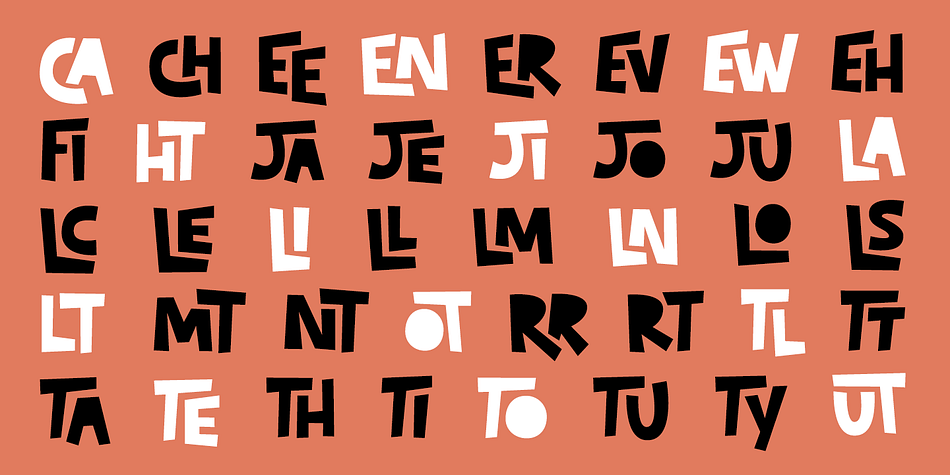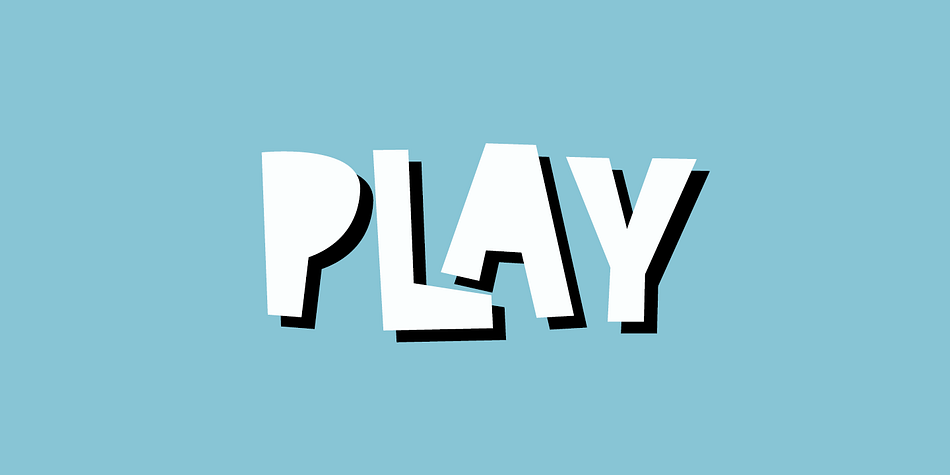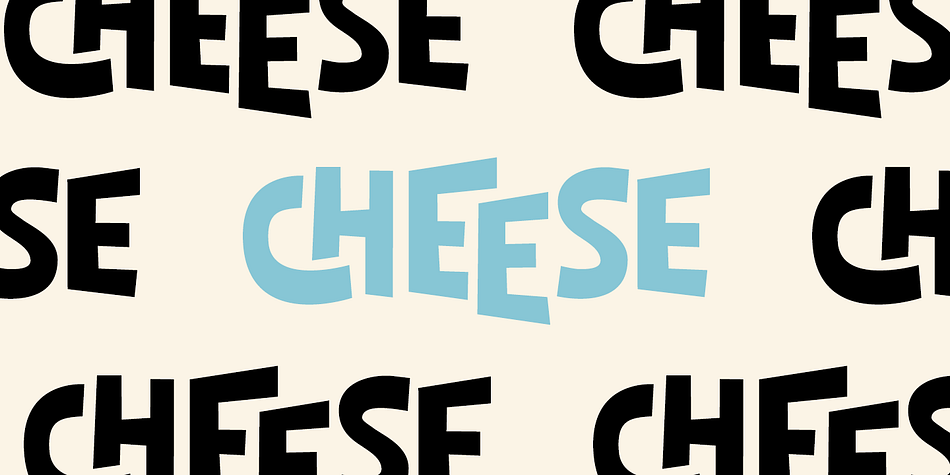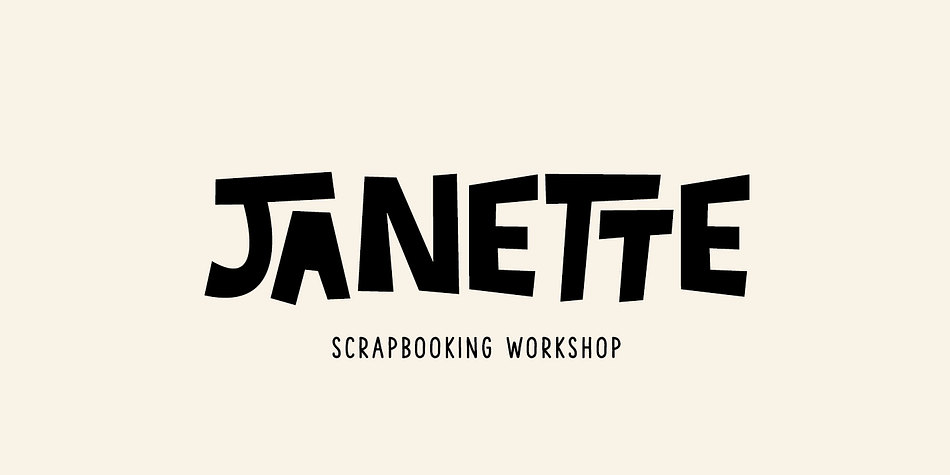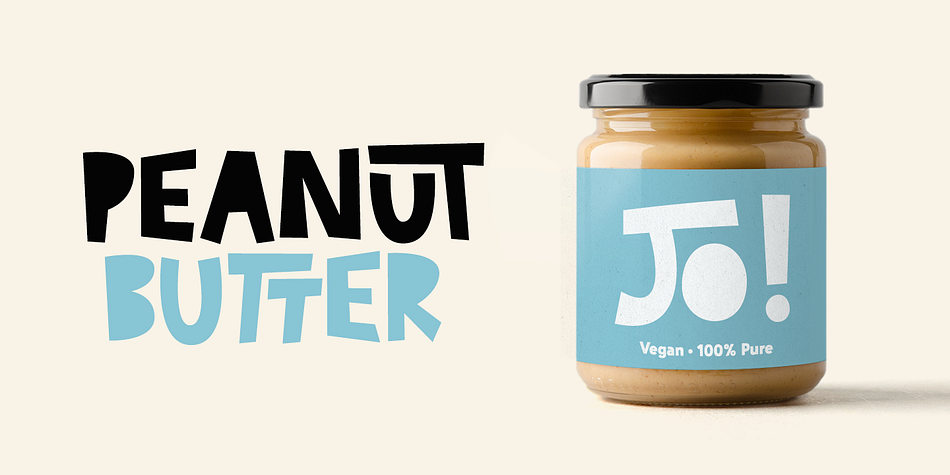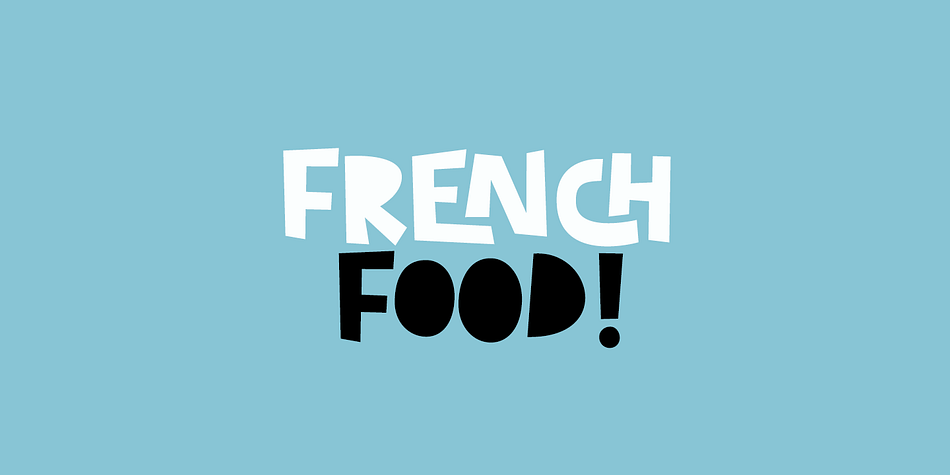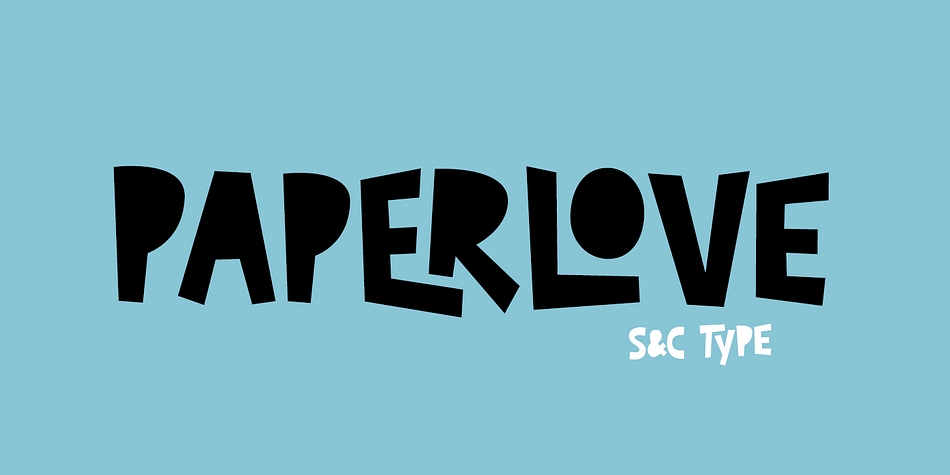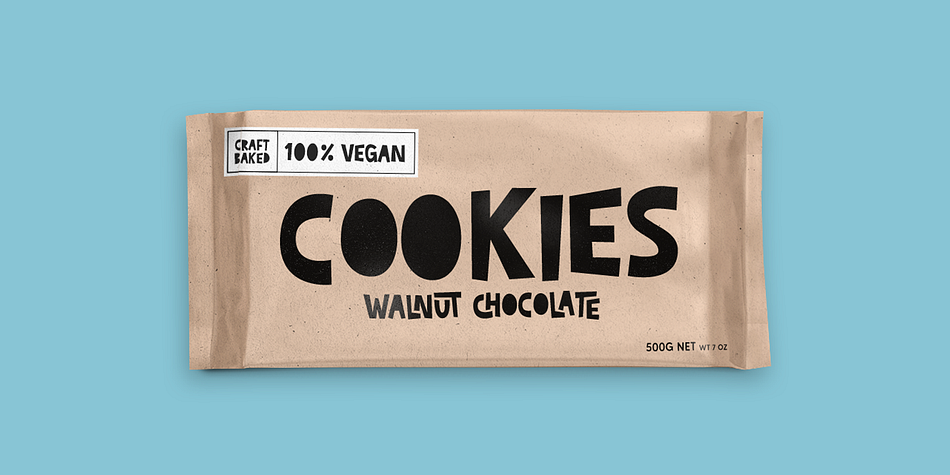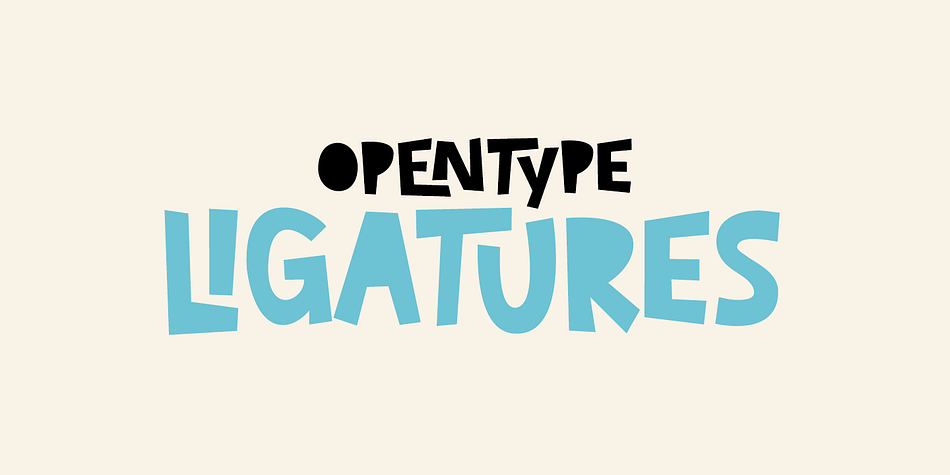
Paperlove
Designed by Julien Saurin and Fanny Coulez, Paperlove is a display font family published by S&C Type.
Paperlove is a hand-drawn font designed by S&C Type in Paris. Easy to use and versatile, Paperlove is a lively font with different ligatures (only on caps) to give to your designs a warm and human touch. Small caps are a little different than caps to create alternative glyphs.